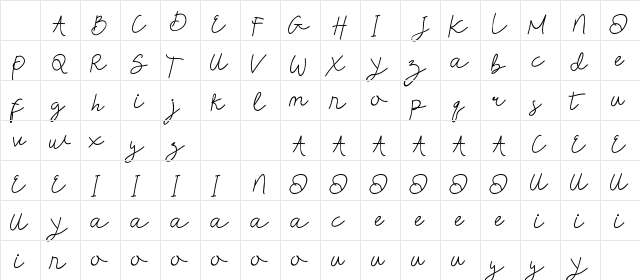
Complete Thifa DEMO Regular glyph index. Displaying only characters natively supported by Thifa DEMO Regular font.
Thifa DEMO is a composed and adaptable typeface that performs quietly and consistently across a wide range of design contexts.